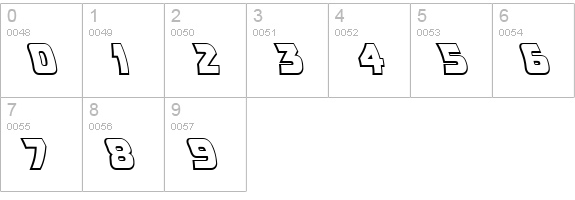
CCDoubleBack-Past Font Details
CCDoubleBack-Past font is a unique and versatile typeface that exudes a sense of nostalgia and charm. Its elegant curves and intricate details make it perfect for adding a touch of sophistication to any project. Whether you're designing invitations, posters, or branding materials, this font is sure to make a lasting impression. What sets CCDoubleBack-Past font apart is its classic yet modern aesthetic, making it suitable for a wide range of design applications. Its timeless appeal and effortless readability make it a must-have for any designer looking to elevate their work. Best of all, CCDoubleBack-Past font is available for free download at FontsMarket.com. So go ahead and enhance your designs with this beautiful and stylish typeface today!